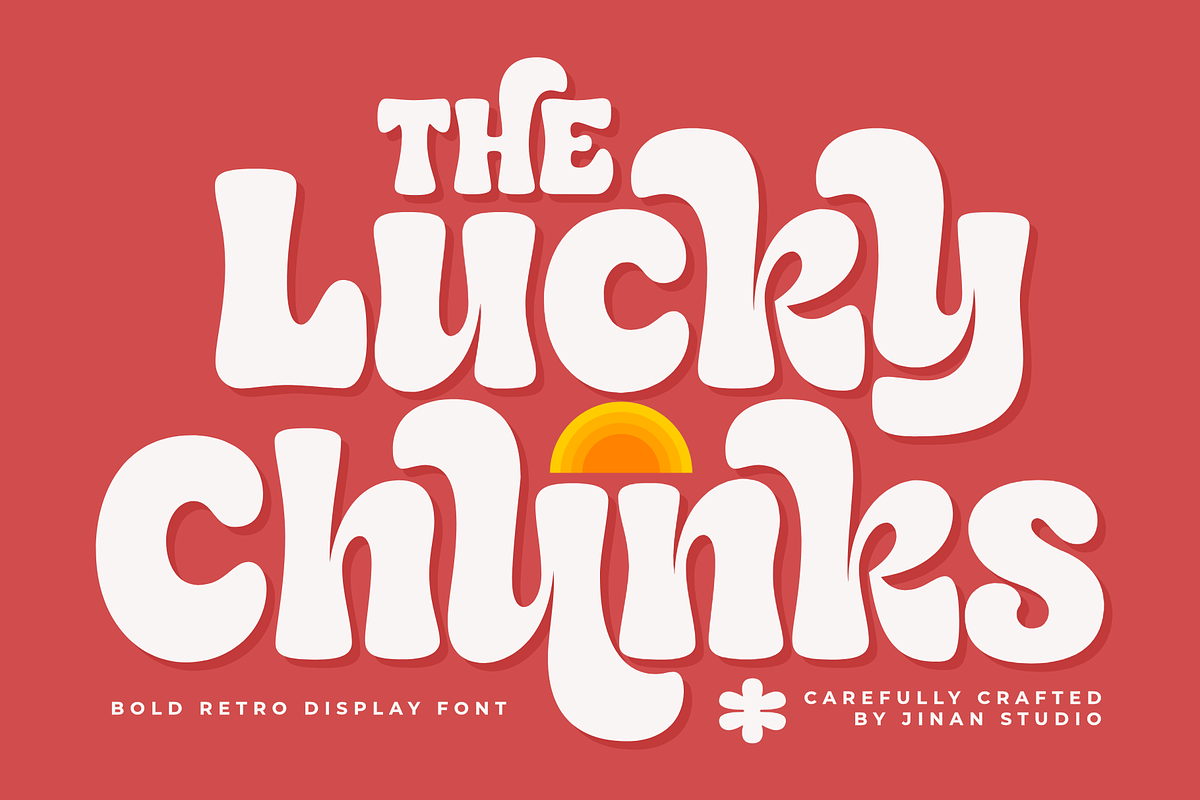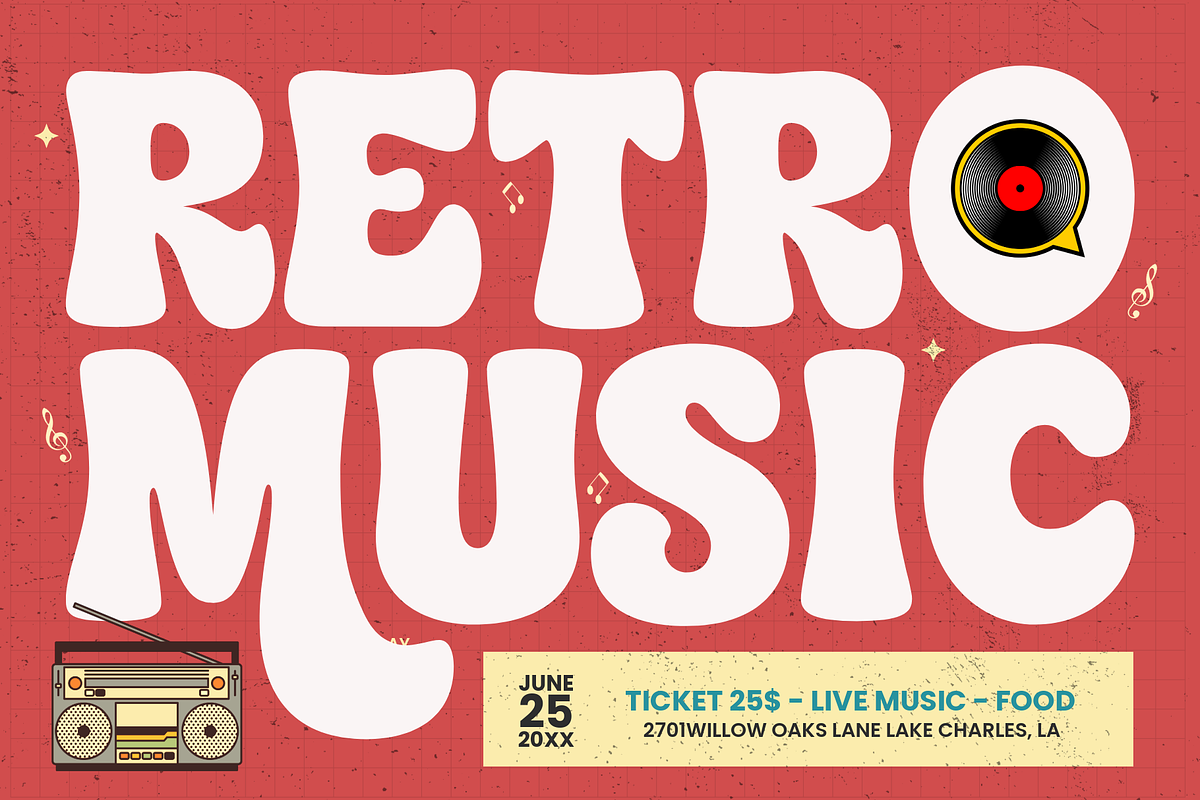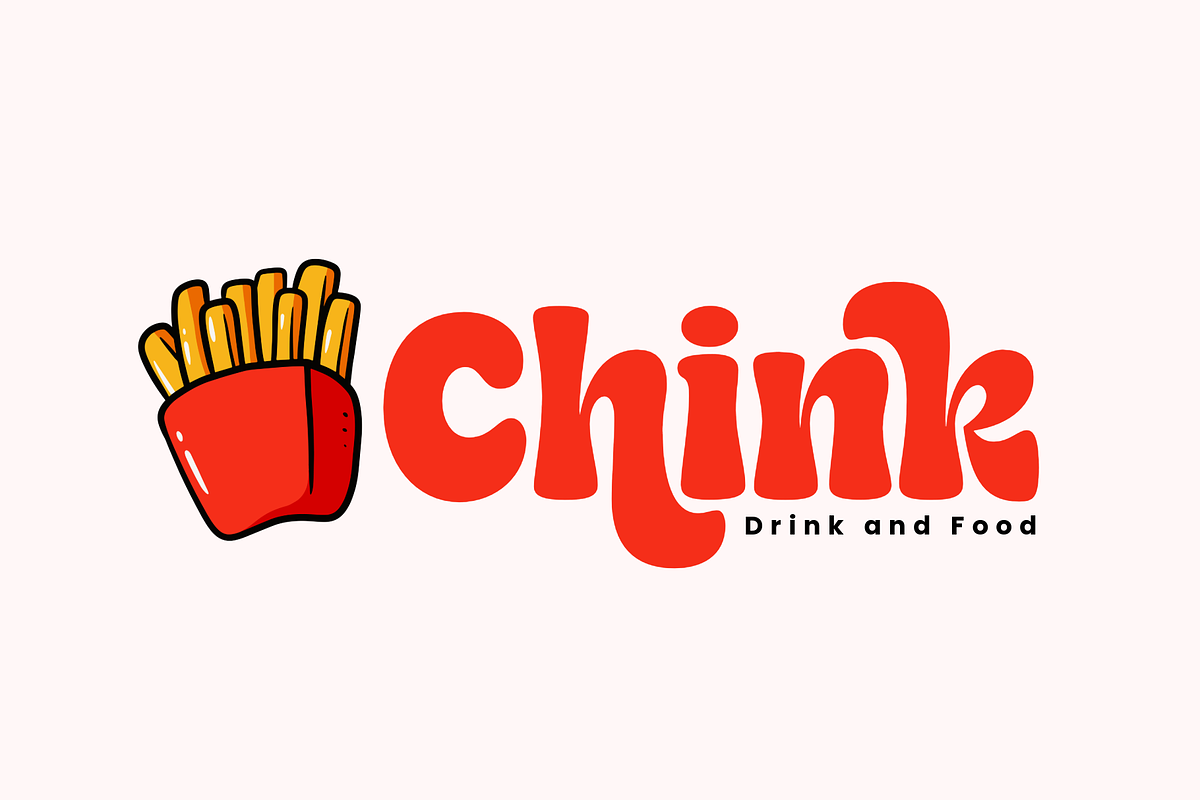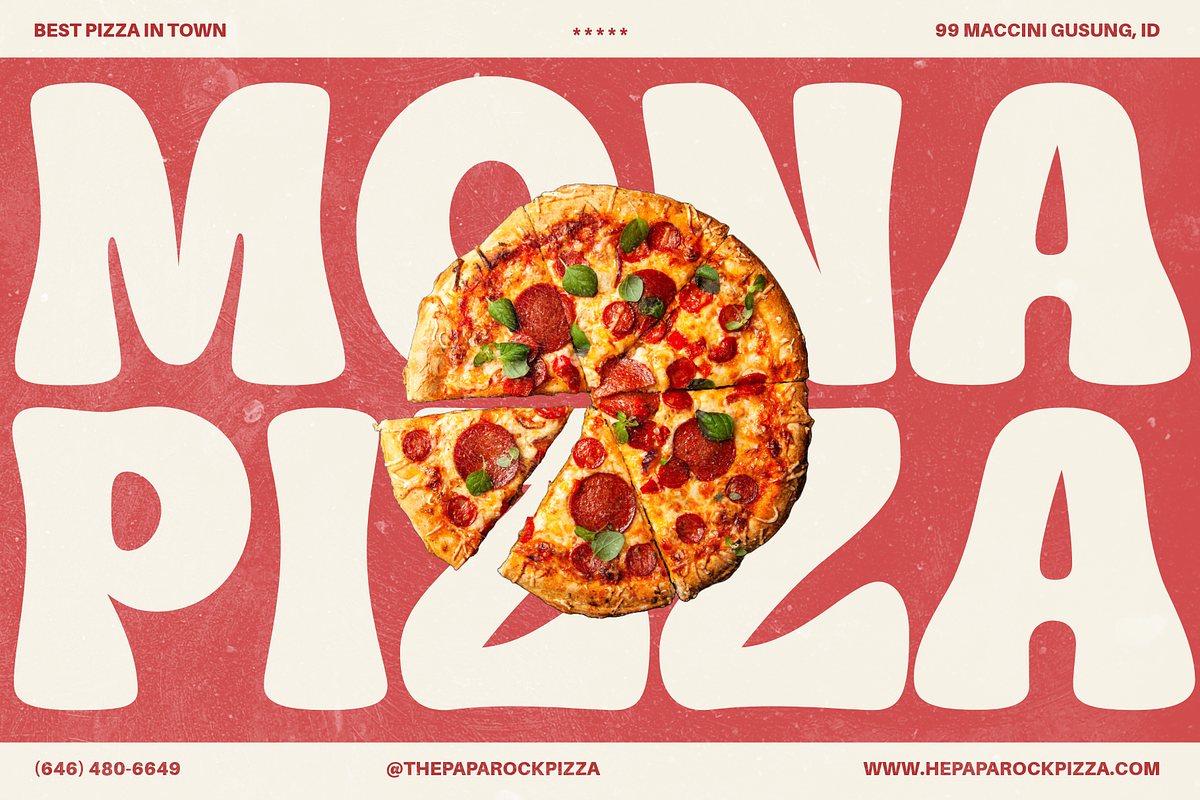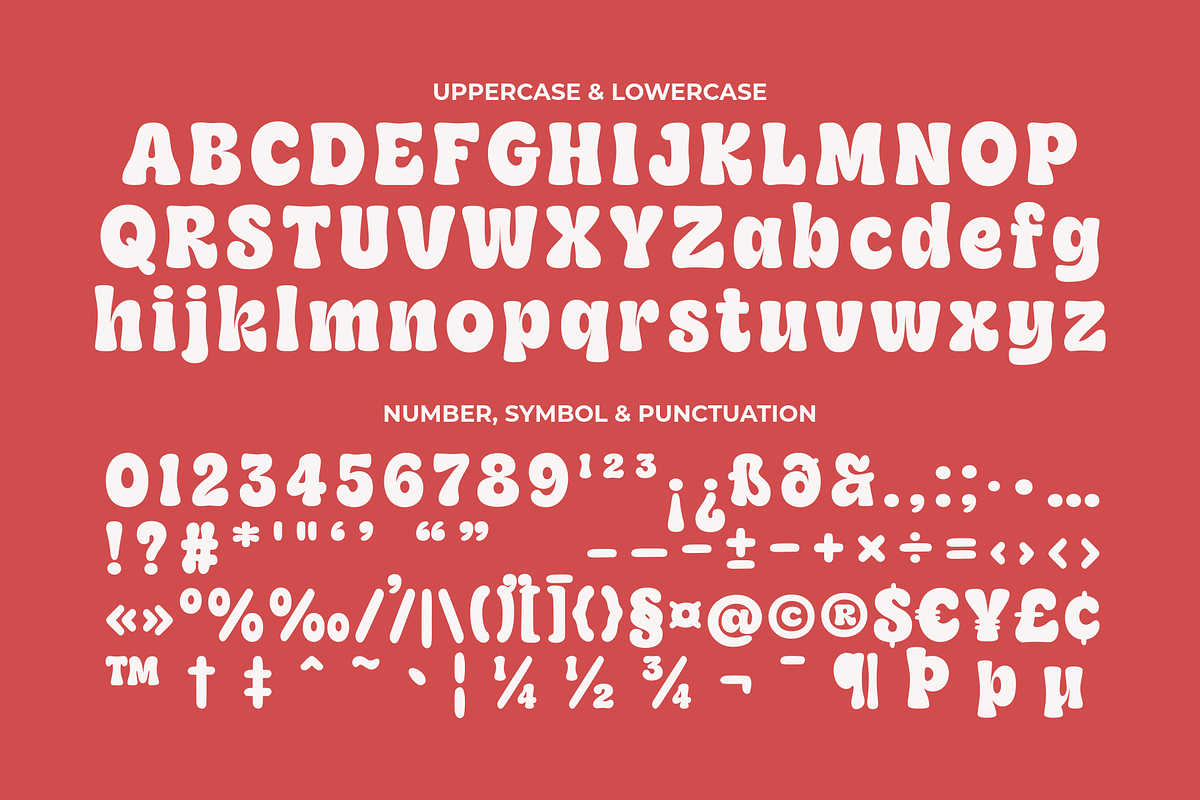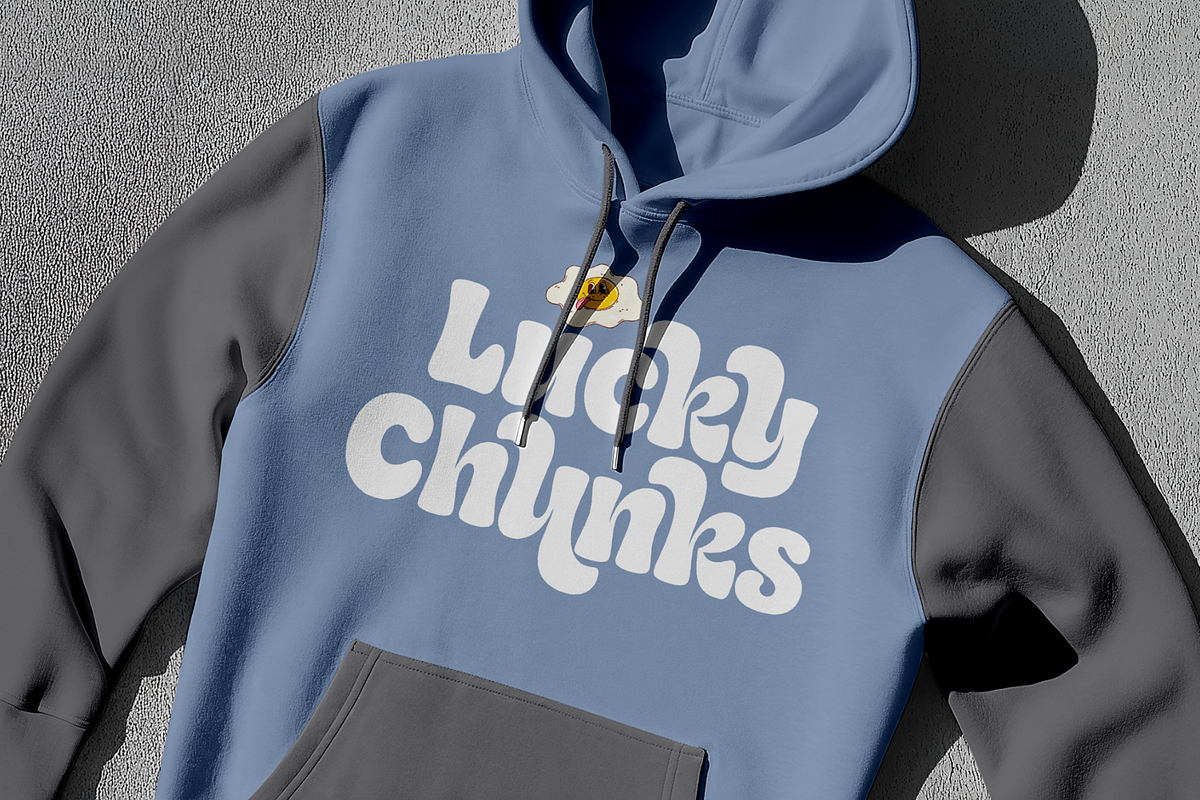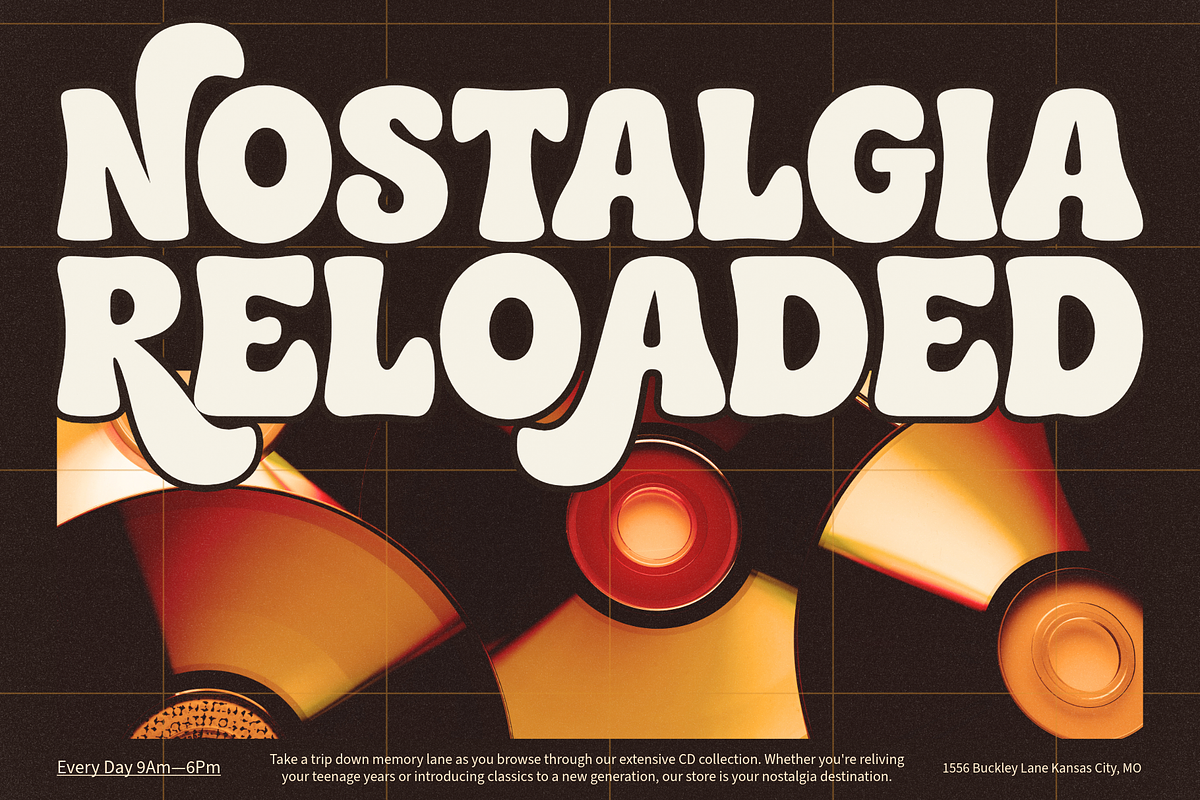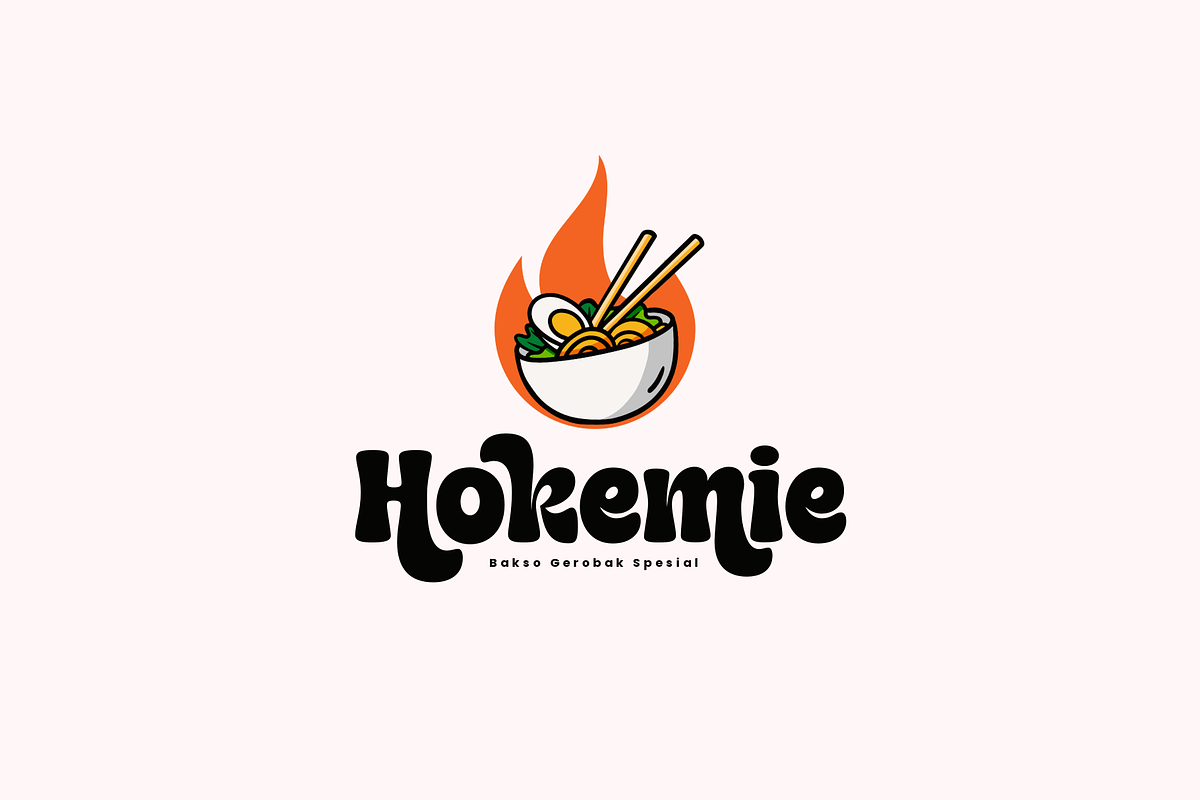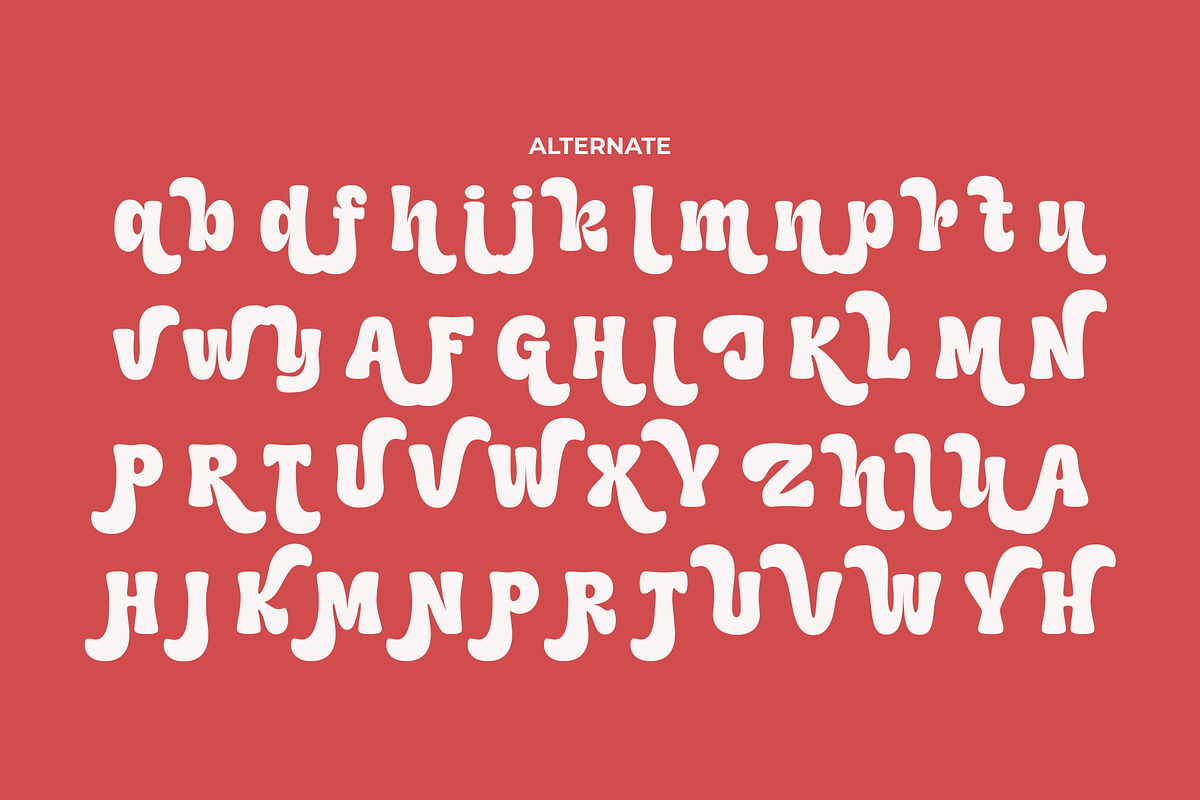
Lucky Chunks - Bold Retro Font
Lucky Chunks is a bold retro display font with a playful groovy vibe and soft rounded curves that bring a warm vintage feeling to every design. Inspired by the cheerful spirit of the 70s and nostalgic handmade lettering, this font is perfect for creating eye-catching headlines, branding, posters, packaging, t-shirts, stickers, and social media graphics.
Its chunky shapes, smooth flowing edges, and unique character style make it ideal for projects that need a fun, friendly, and expressive touch. Whether you're designing for boho themes, retro aesthetics, kids branding, or vintage-inspired products, Lucky Chunks adds personality and charm effortlessly.
Perfect for logos, quotes, invitations, album covers, café branding, and creative craft projects, this font gives your work a standout look with a timeless retro soul.
- A set of uppercase and lowercase glyphs
- Number, symbol, and punctuation